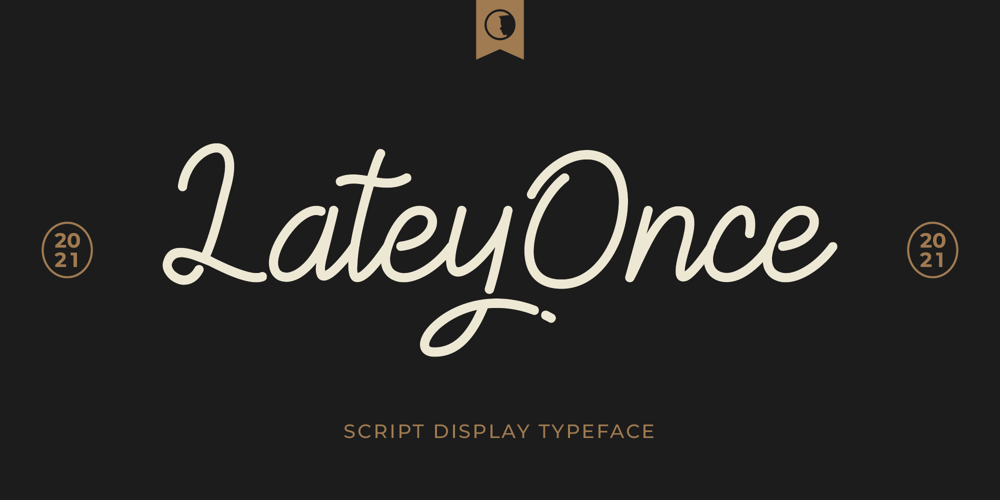
Latey Once
Latey Once font
Latey Once Font Family was designed by ahmad faizin and published by skillyas studio. Latey Once contains 1 styles and family package options. LateyOnce feels playfully nostalgic and delivers an incredible vintage aesthetic.Use this handwritten font to add that special retro touch to any design idea you can think of!LateyOnce comes with 308 glyphs.Alternative characters are divided into several Open Type features such as Swash, Stylistic Alternate and Stylistic Sets.The Open Type feature can be accessed using savvy programs such as Adobe Illustrator, Adobe InDesign, Adobe Photoshop, Corel Draw, and Microsoft Word.This font is PUA encoded (custom coded font) which means you can access all of the glyphs and swashes with ease! FEATURES:• Additional Accents• Multilingual Support• Kerning• Alternates• LigaturesCOMPATIBLE OS:• Mac OS• Windows